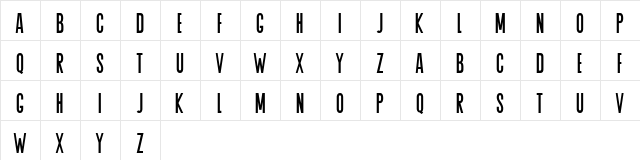
Agrem Regular
| Foundry | MaulanaCreative |
| Designer | MaulanaCreative |
Design Context for Agrem Typeface
Agrem is a composed and adaptable typeface that performs quietly and consistently across a wide range of design contexts.